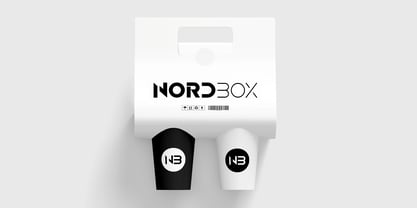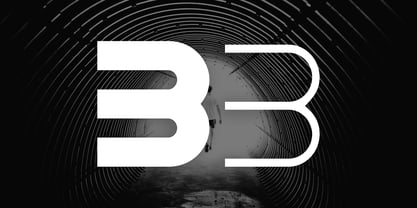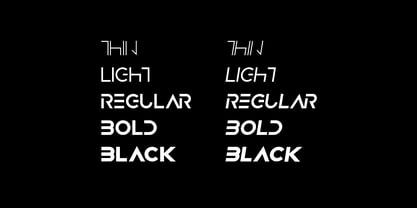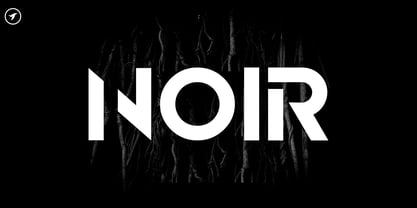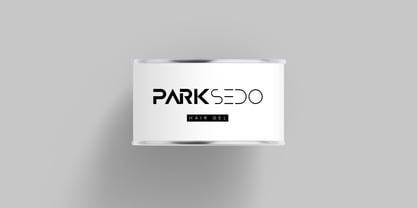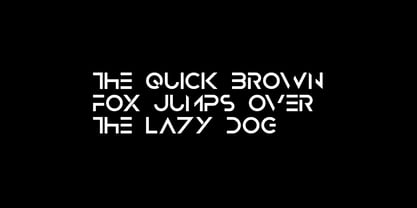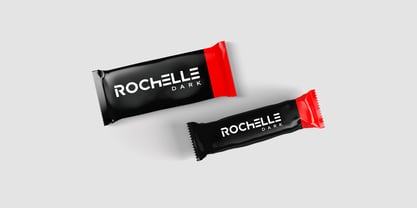
Noir Display
La familia tipográfica Noir Display fue diseñada por Jean Johnson y publicada por Designova. Noir Display contiene 10 estilos y opciones de paquete familiar. Más información sobre esta familia
A stunning display typeface for designers, NOIR is a truly unique all-caps display typeface particularly dedicated to display/headline/branding/logotype usage. NOIR will be best suited for creating nicely looking logos, brand identities and headlines. Just see the demo images given above for an abstract idea about the capability of this typeface.
NOIR typeface comes with 5 weights: THIN / LIGHT / REGULAR / BOLD / BLACK as well as italic versions of all 5 weights.